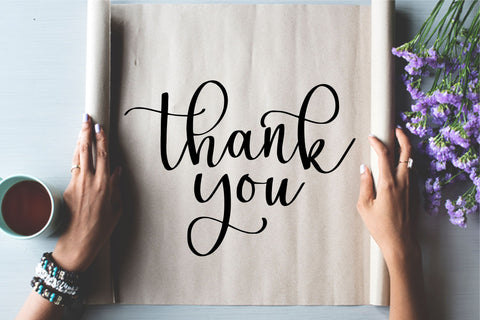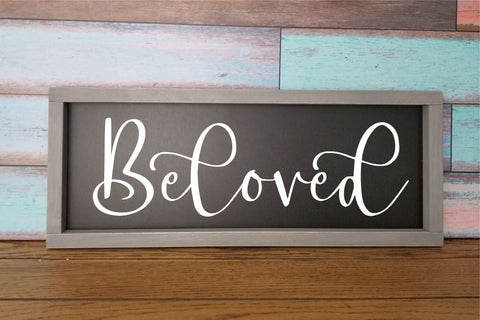
Abigailside
Proudly Present, Abigailside
Abigailside is a Quirky Handwritten Font
Abigailside is perfect for product packaging, branding project, megazine, social media, wedding, or just used to express words above the background.